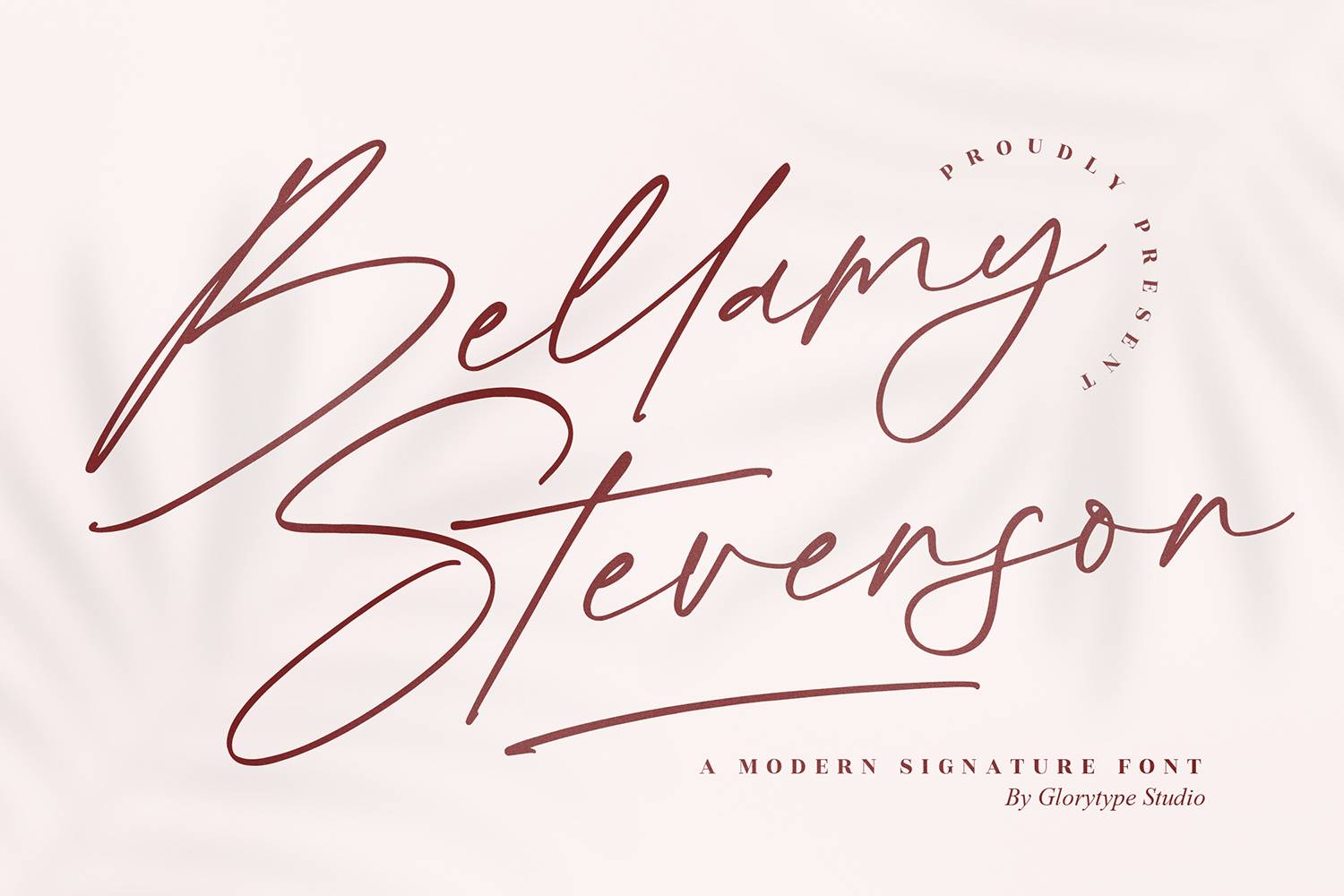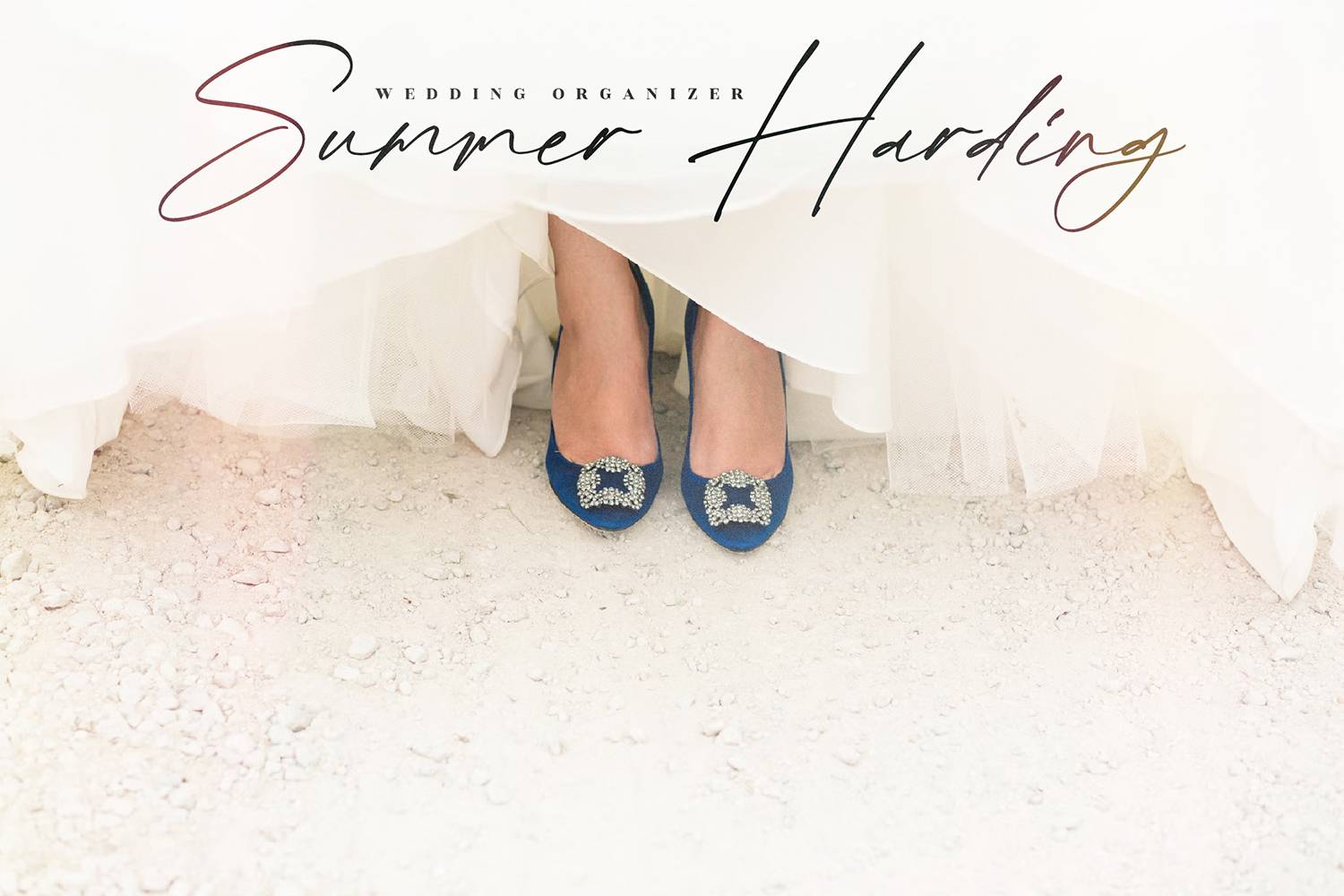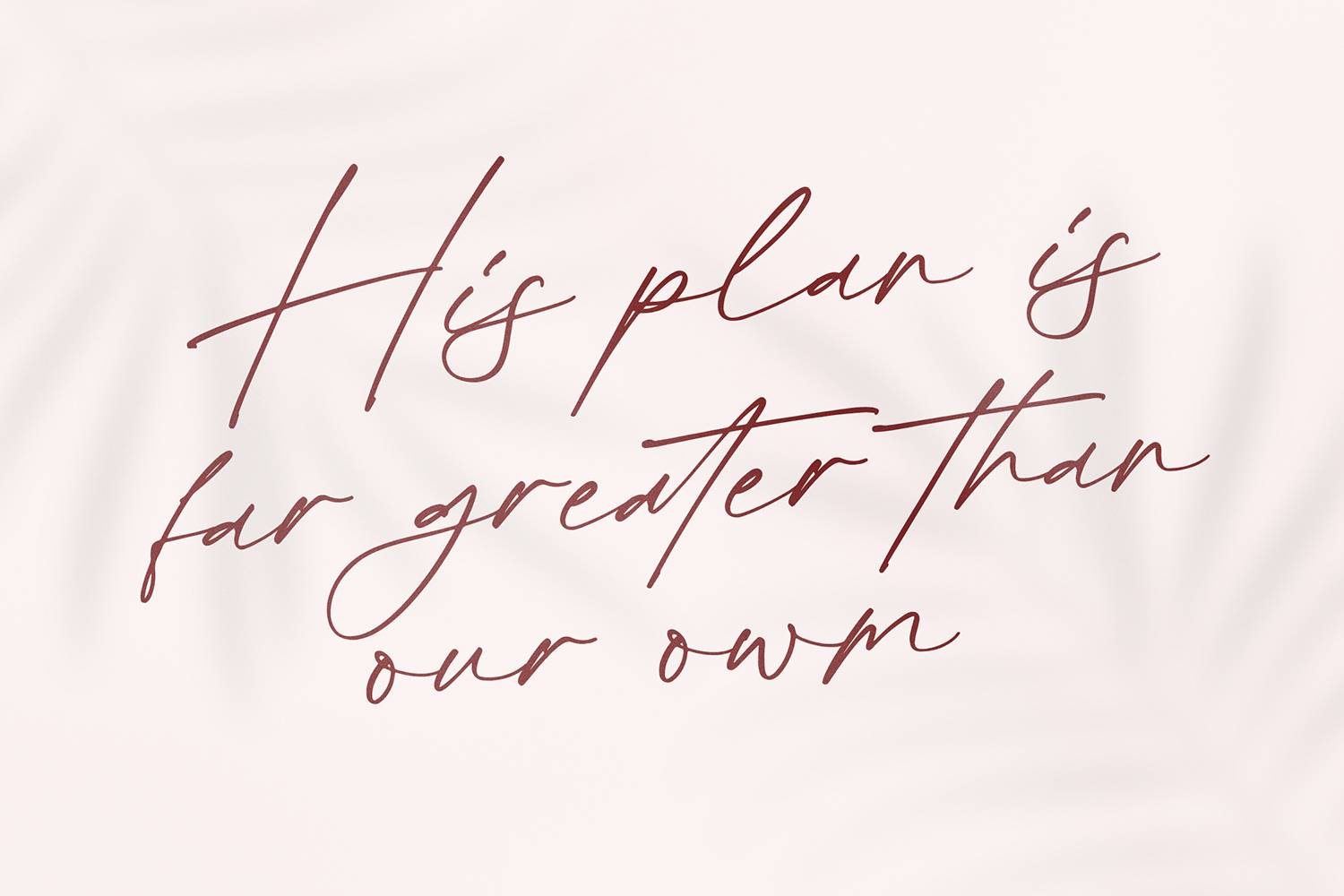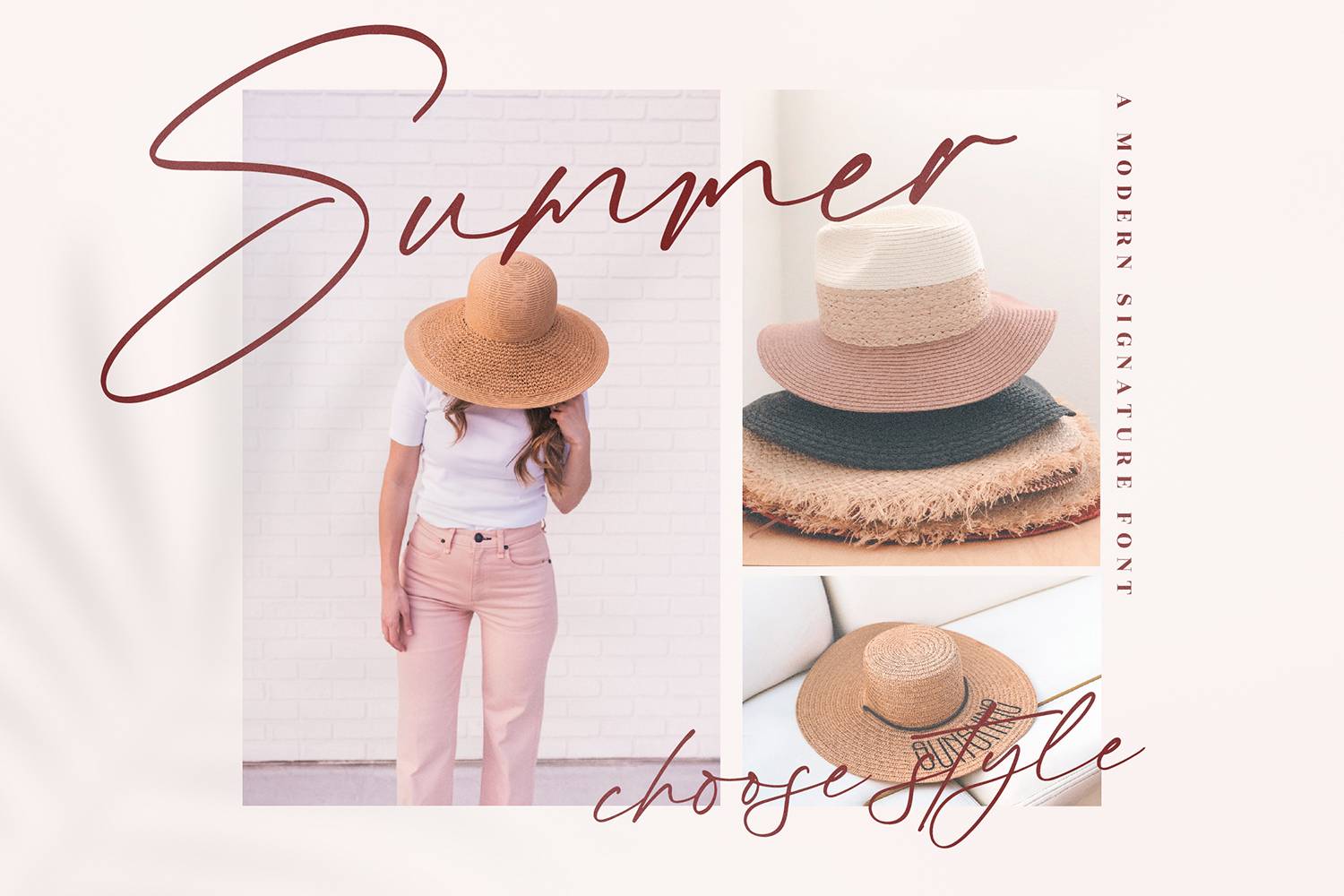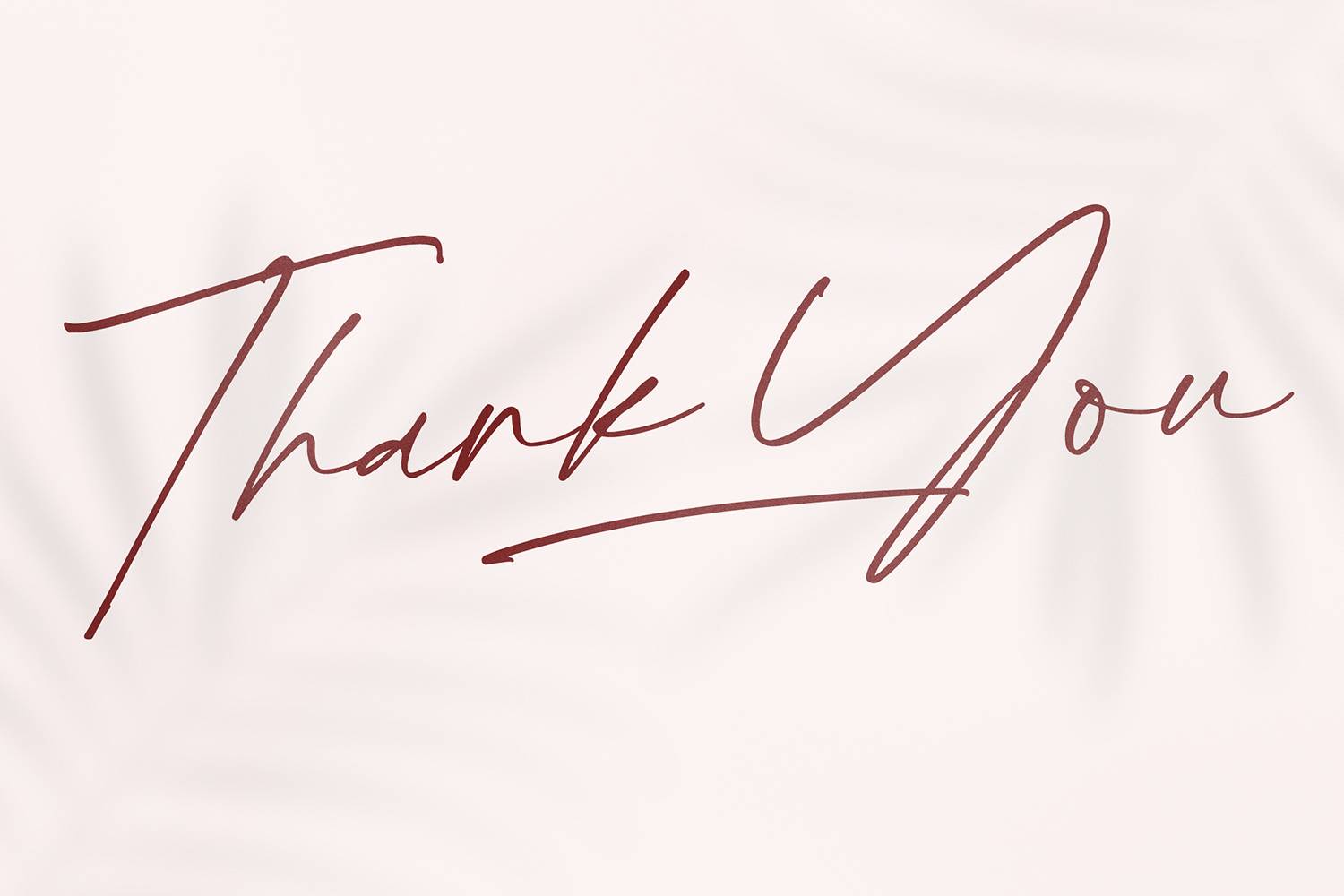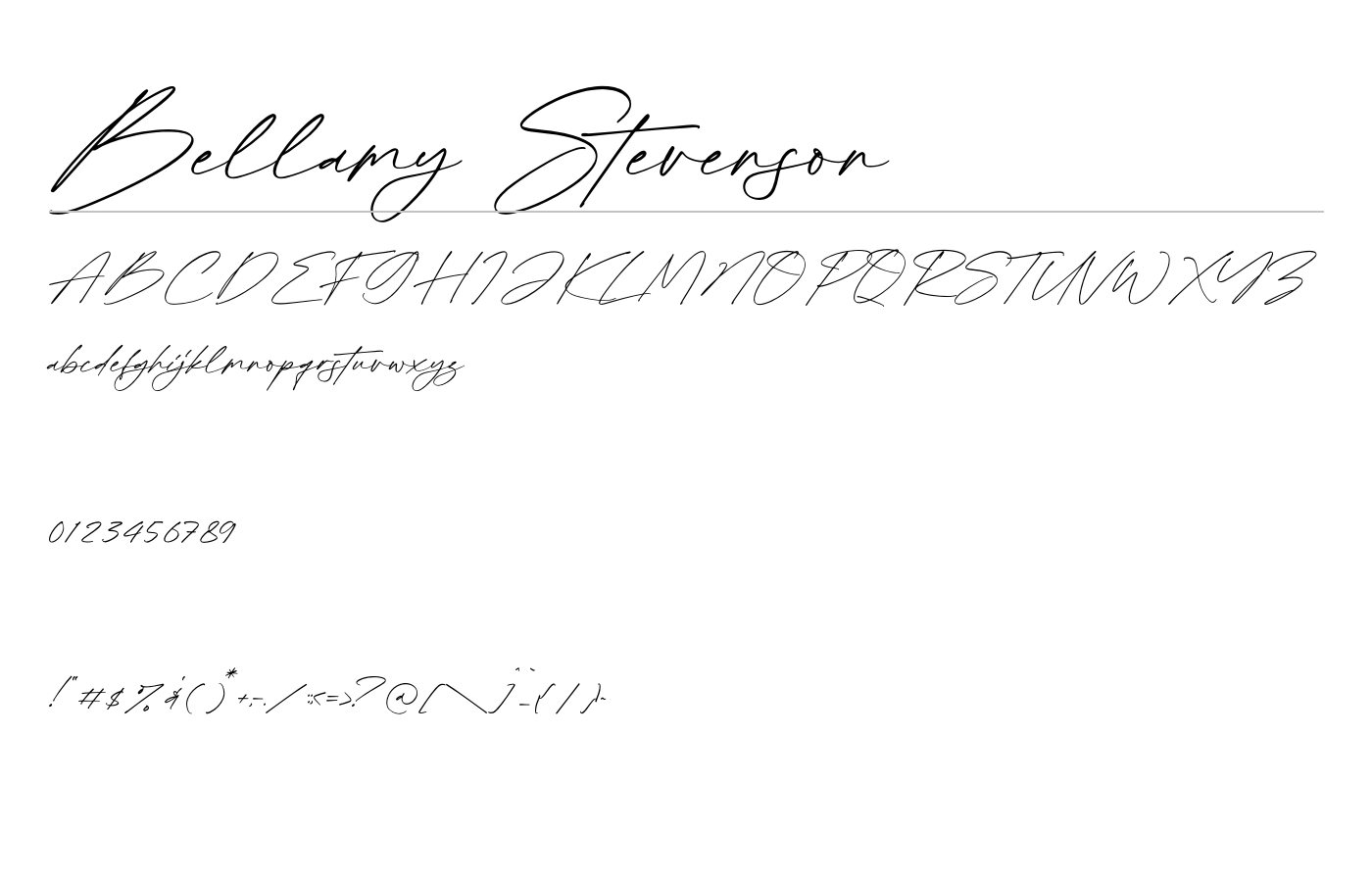
Bellamy Stevenson is a delicate, elegant script font characterized by its thin, flowing strokes and graceful, handwritten style. It exudes a sophisticated and modern personality, perfect for luxury branding, invitations, and stylish editorial designs where a personal, refined touch is desired. Its light weight and airy letterforms make it best suited for headlines and decorative uses rather than body text.
Bellamy Stevenson Font
About Bellamy Stevenson Font